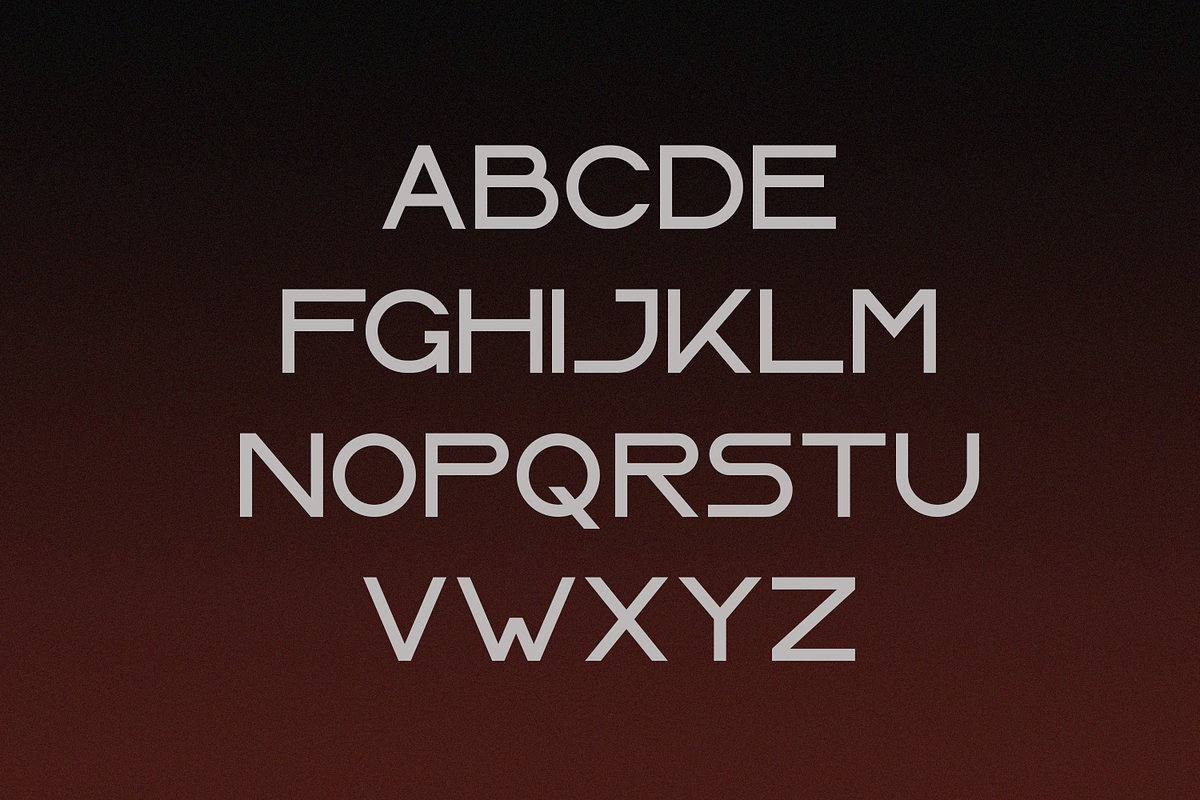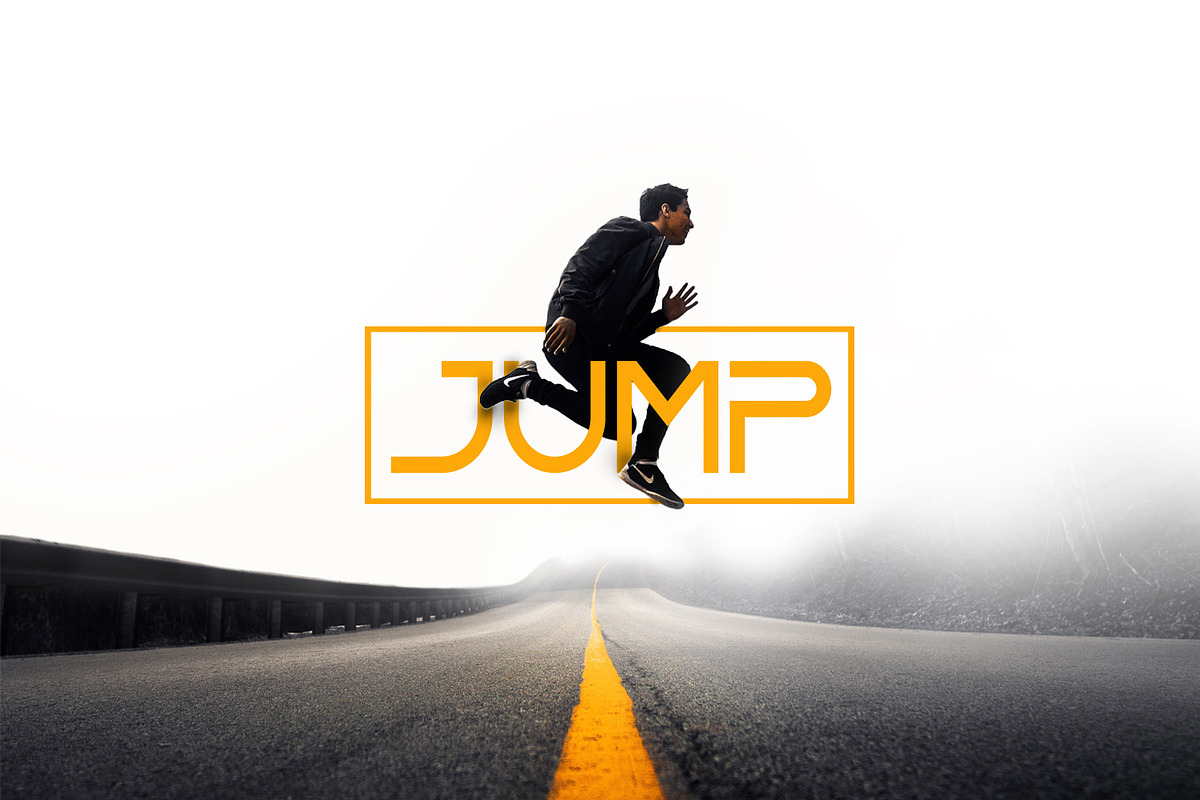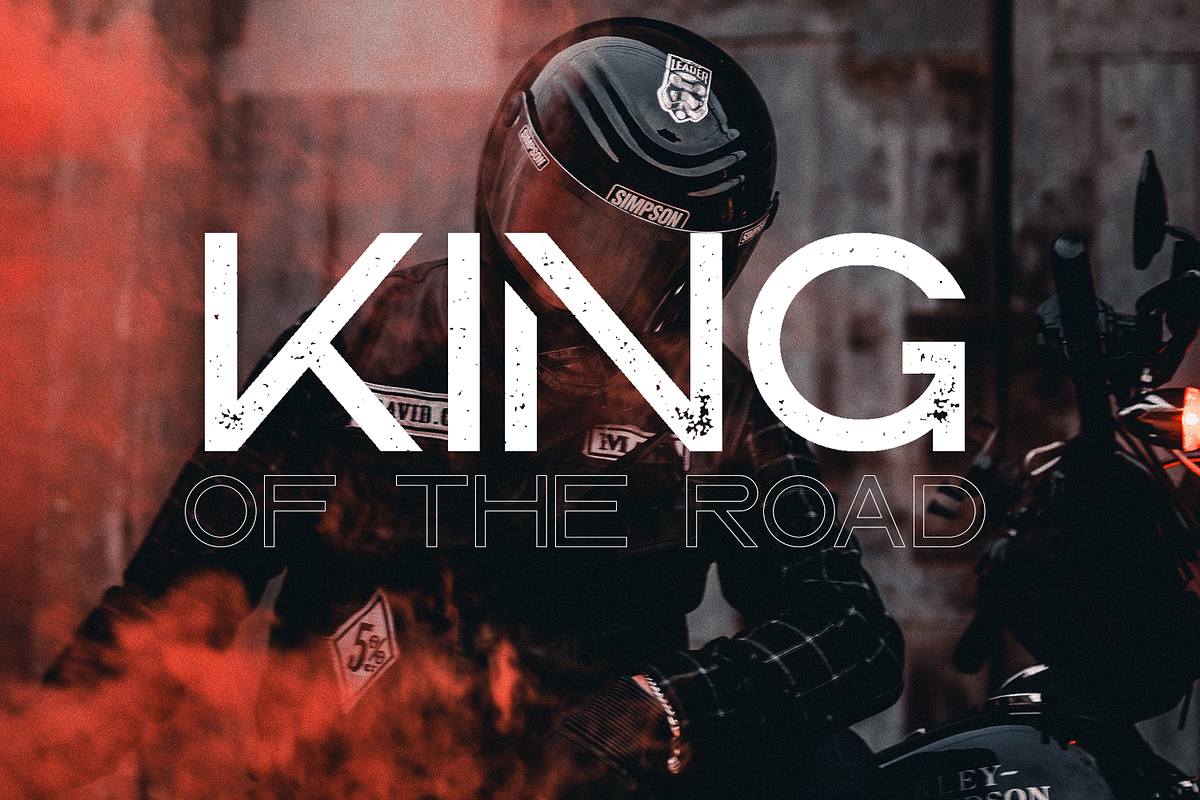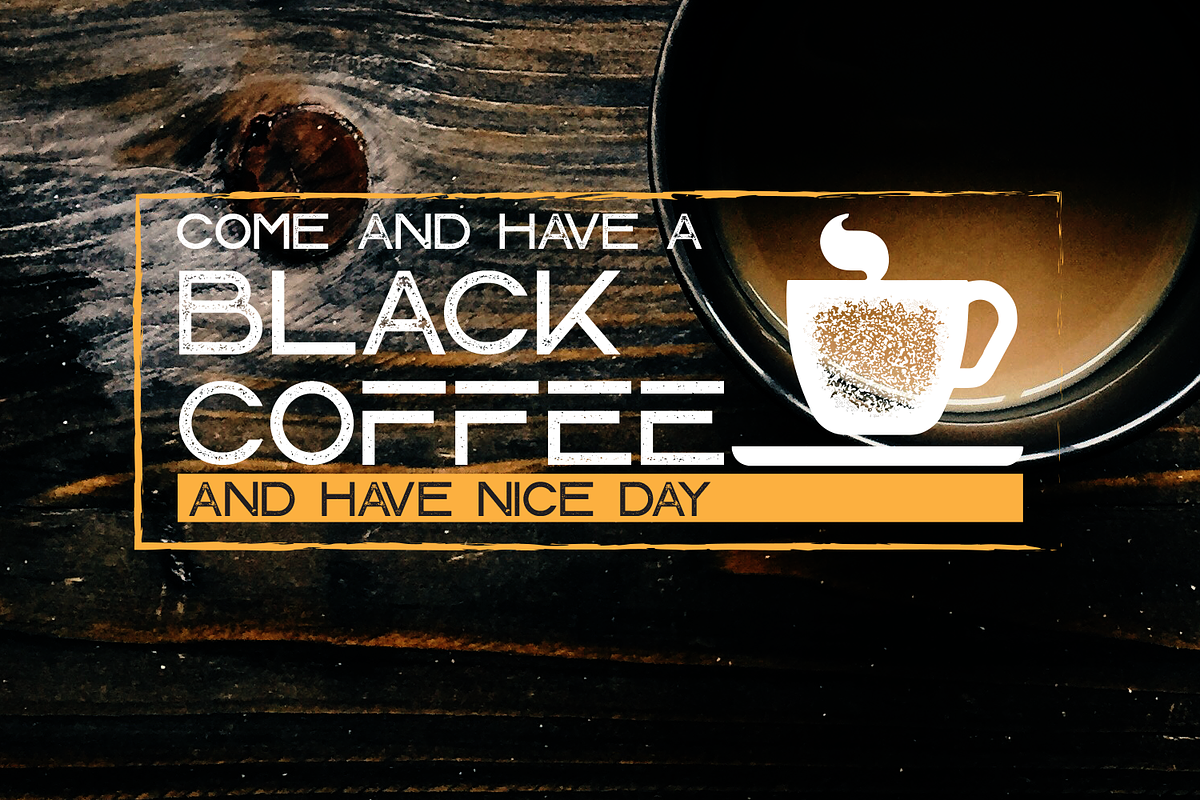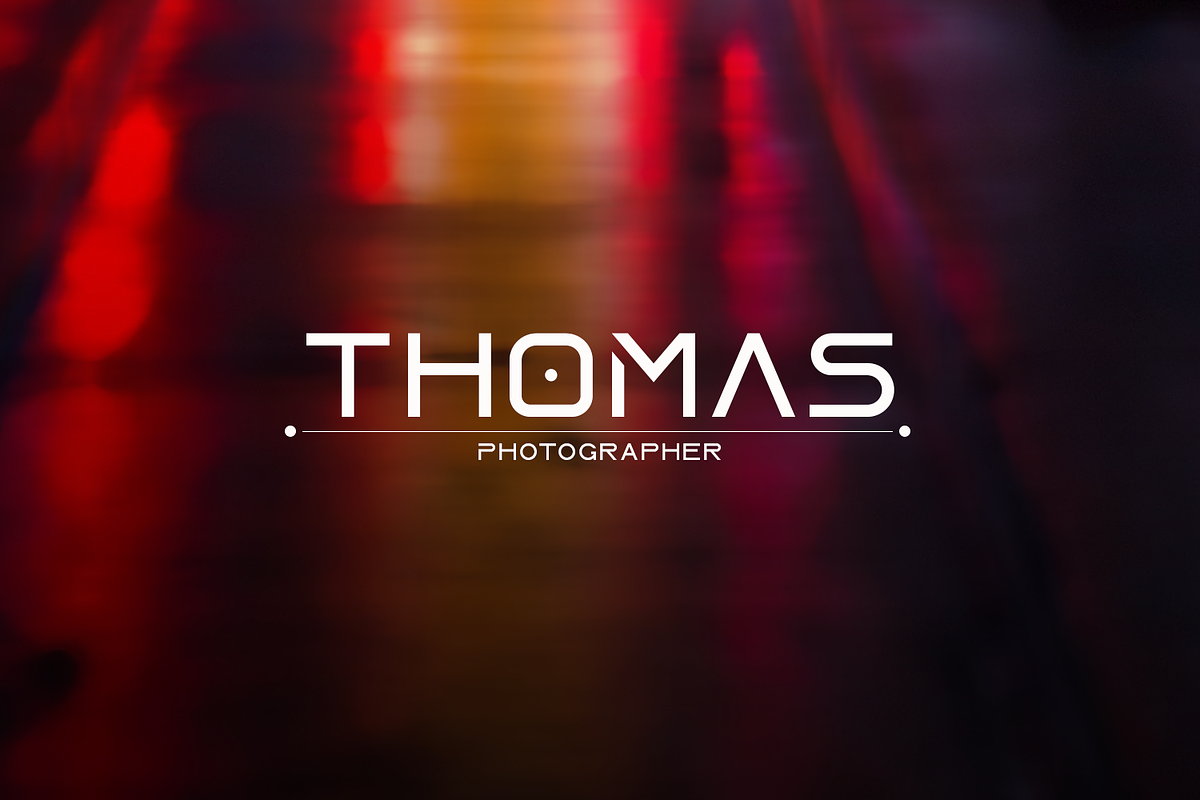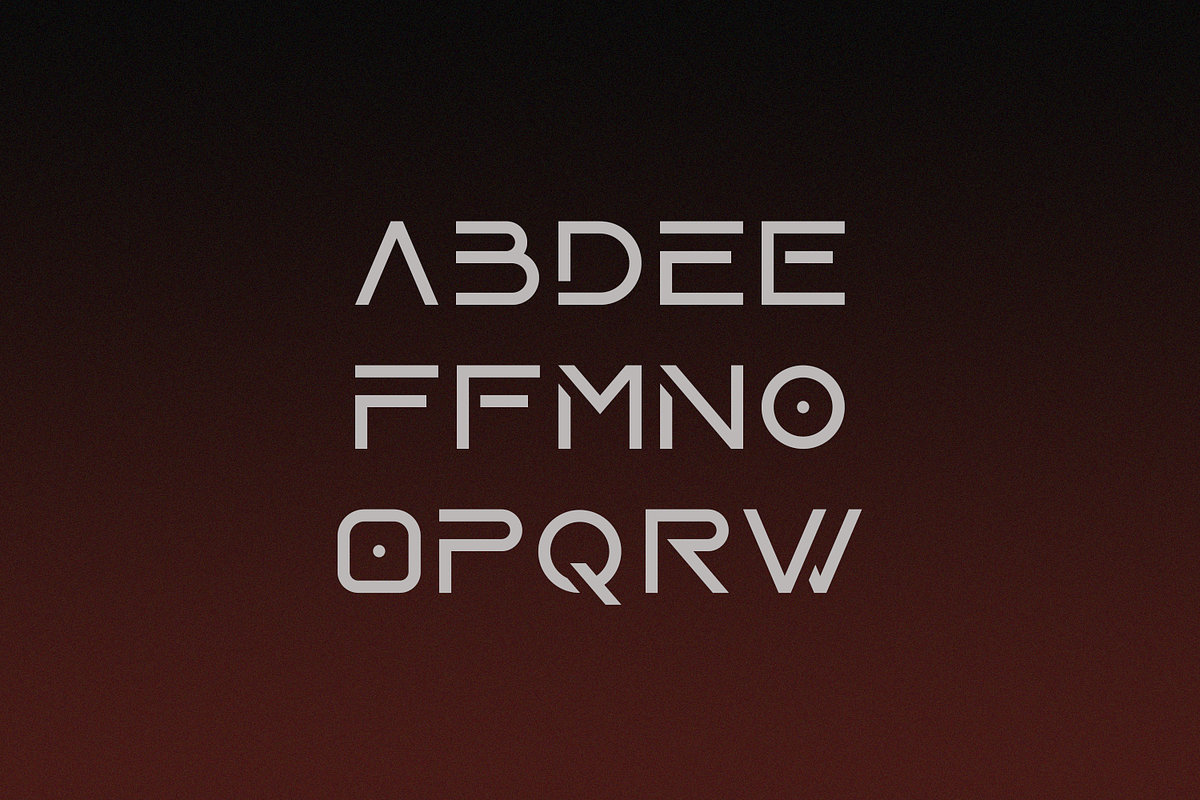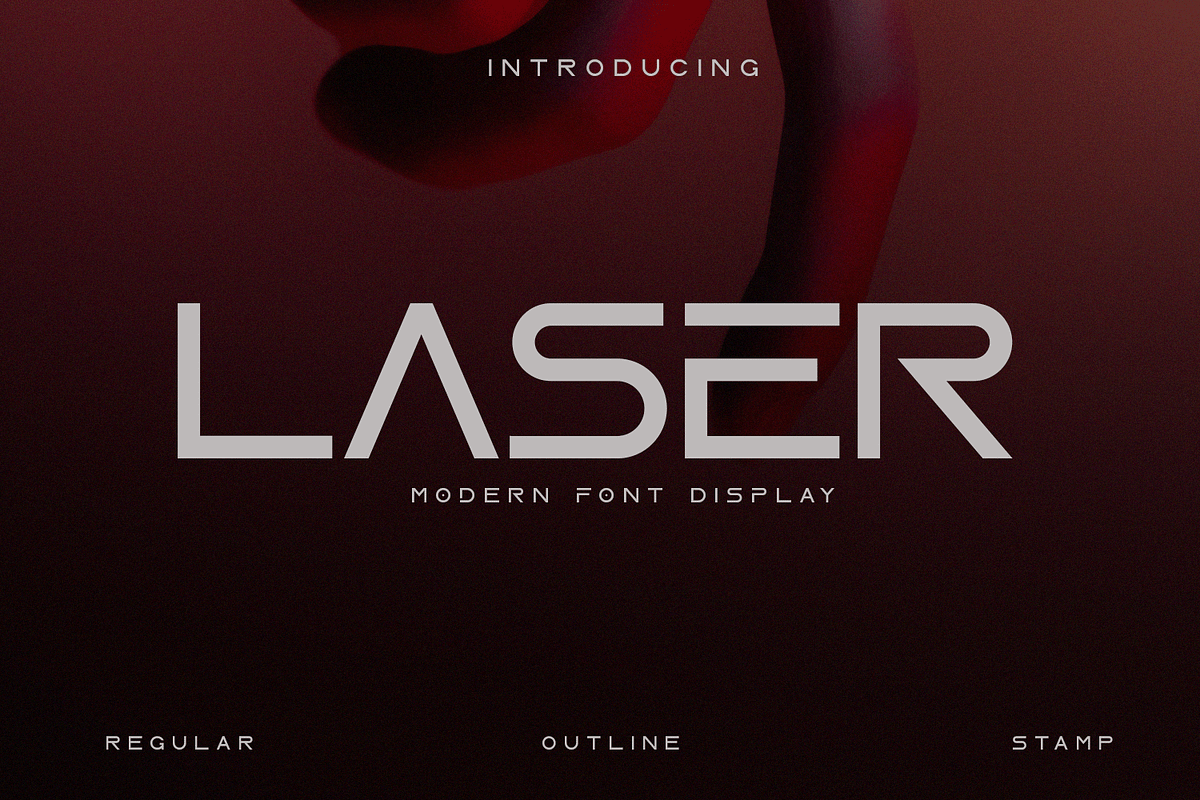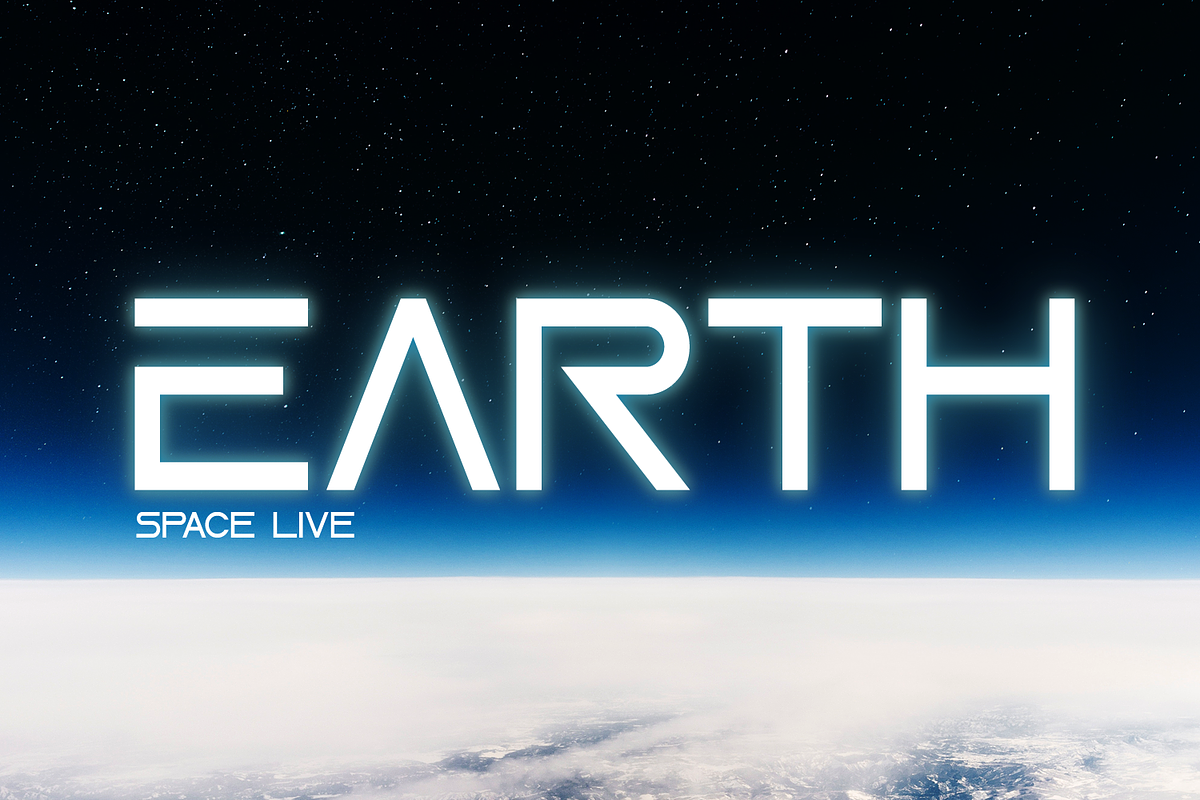
Laser - Futuristic Font
Laser fonts was specially designed with san serif type gives the impression of being clean,modern and extremely ellegant. This font would be perfectly used as namecard, poster, logo, magazine, cover, banner, tshirt and headers, or even large-scale artwork. The Laser has 3 variants namely: Regular, Outliner and Stamp style.